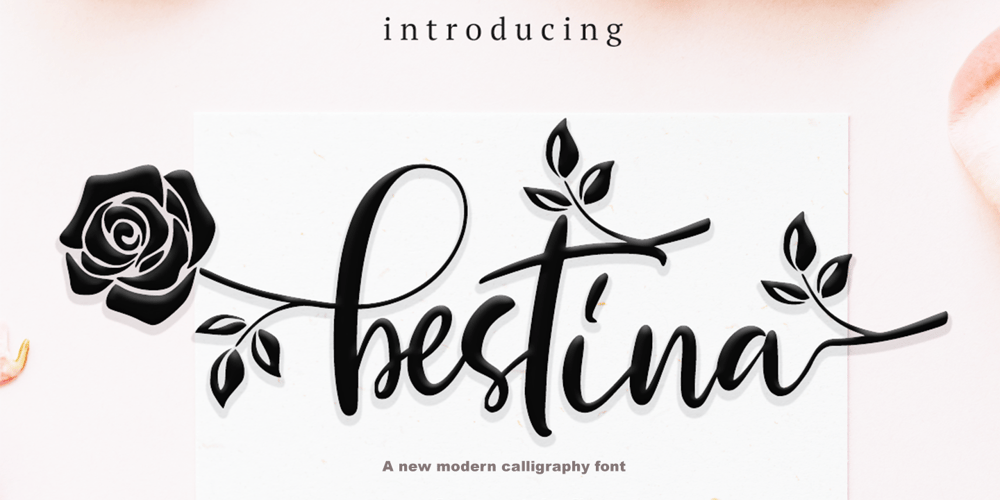
Bestina
Bestina font
Bestina Font Family was designed by Muhammad Zaini and published by Cocodesign. Bestina contains 1 styles and family package options. INTRODUCINGBestina Modern Calligraphy. This font was designed by handwriting, and it has a modern and unique forms of calligraphy, the writing style is very natural. Bestina has a very unique style of calligraphy, it is very suitable for use in the work of modern design.The Features of this fonts is: * Standart ligatures * Stylistic Alternates * PUA Unicode (Private Use Areas)